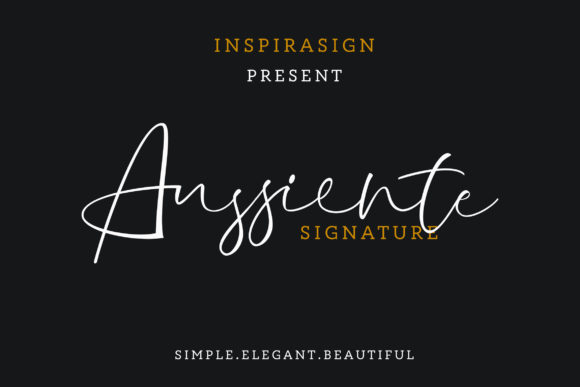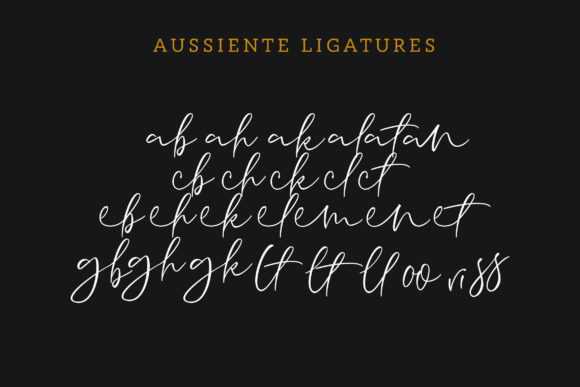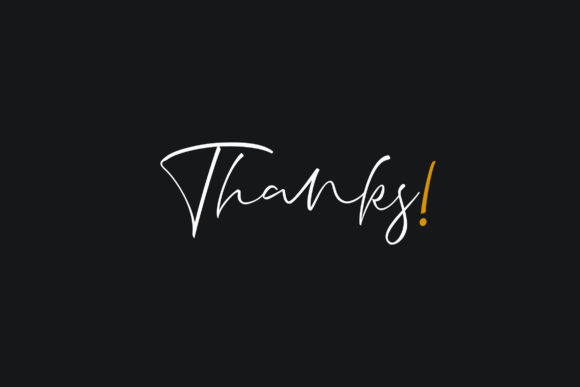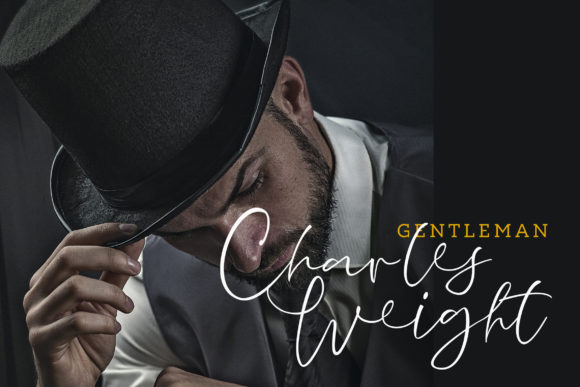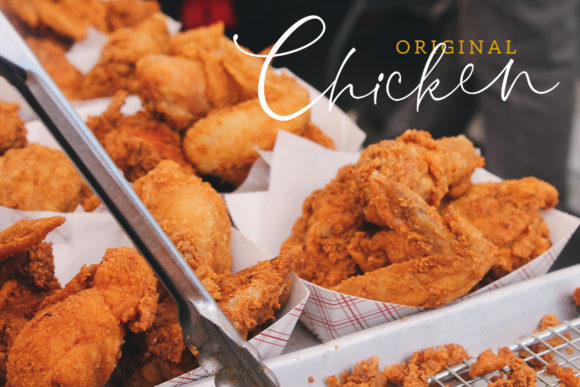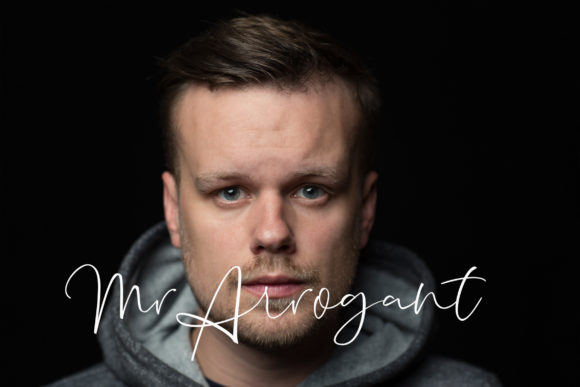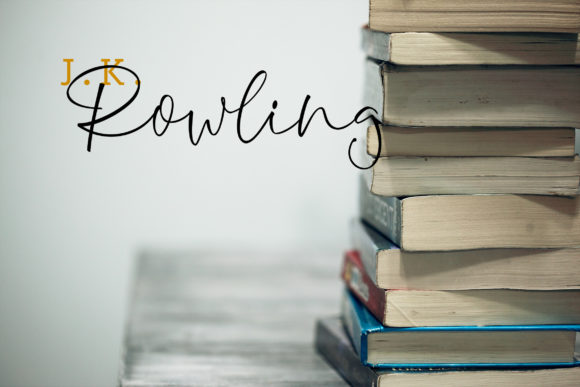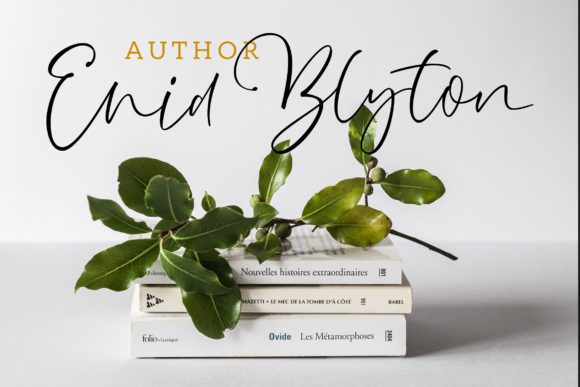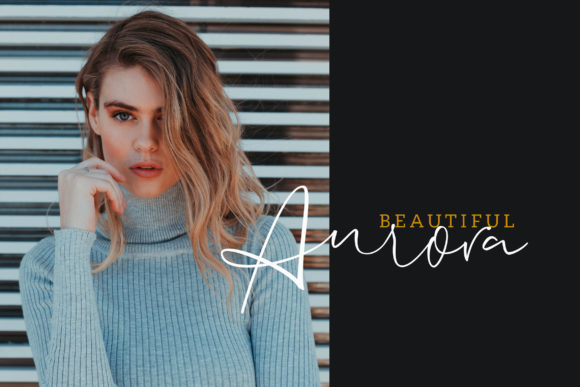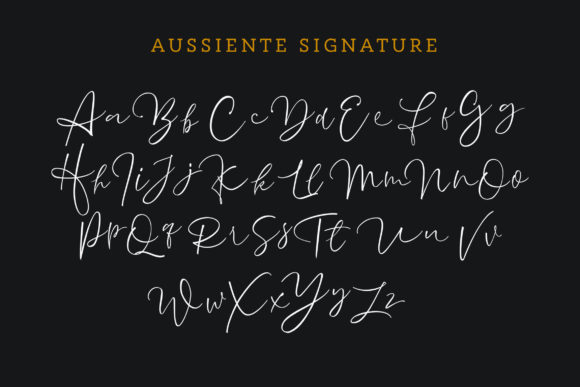
Aussiente Font
The Aussiente is a classic signature font. It was inspired by classic posters and is perfect for logos, letterheads, posters, apparel, labels, and much more!